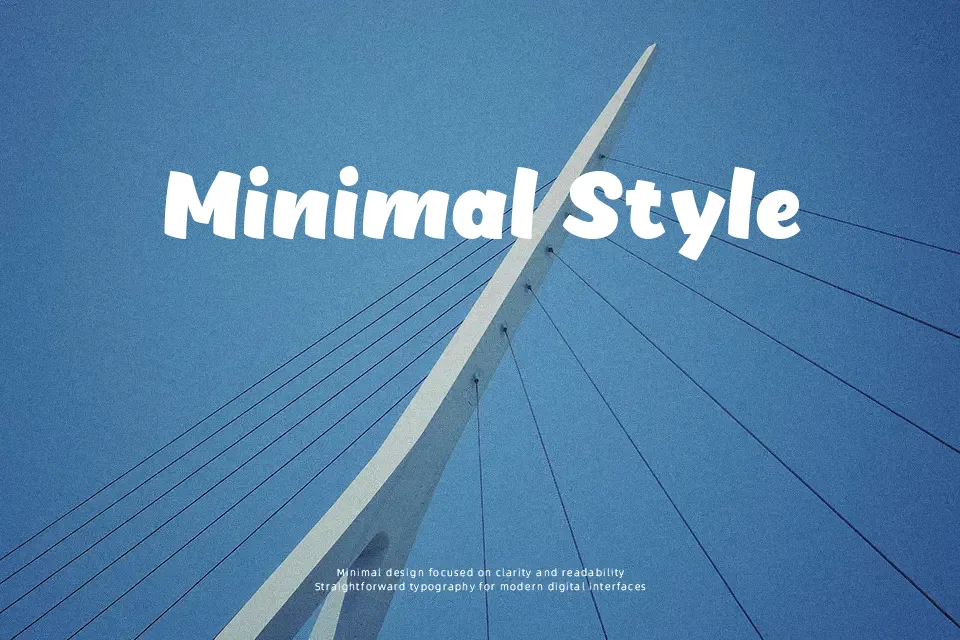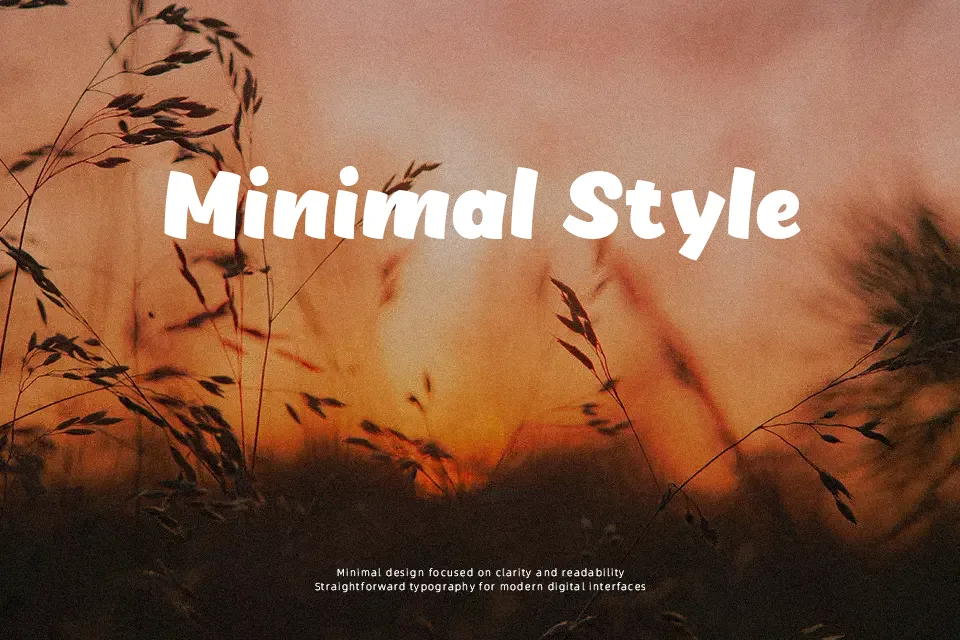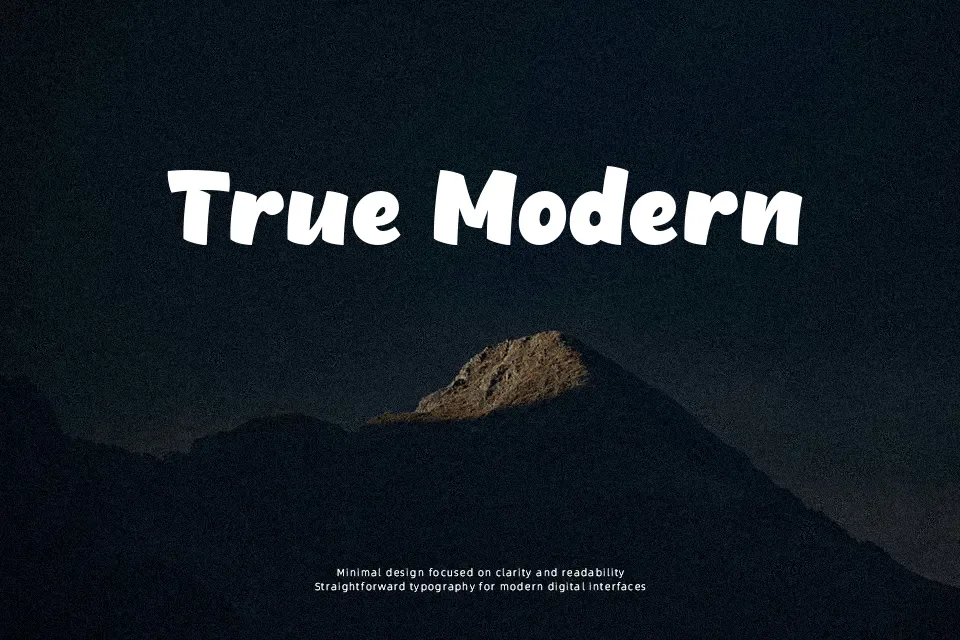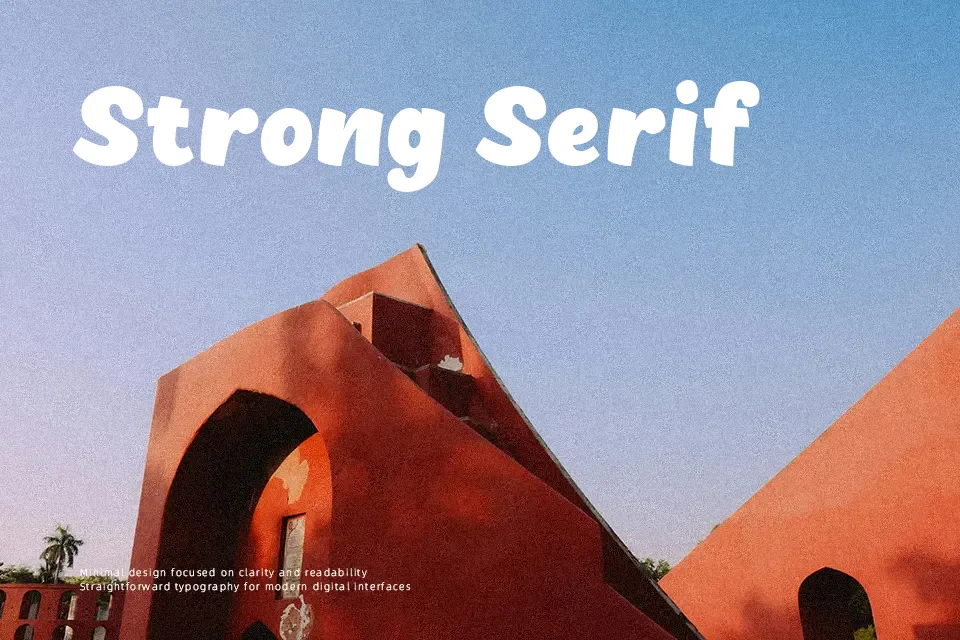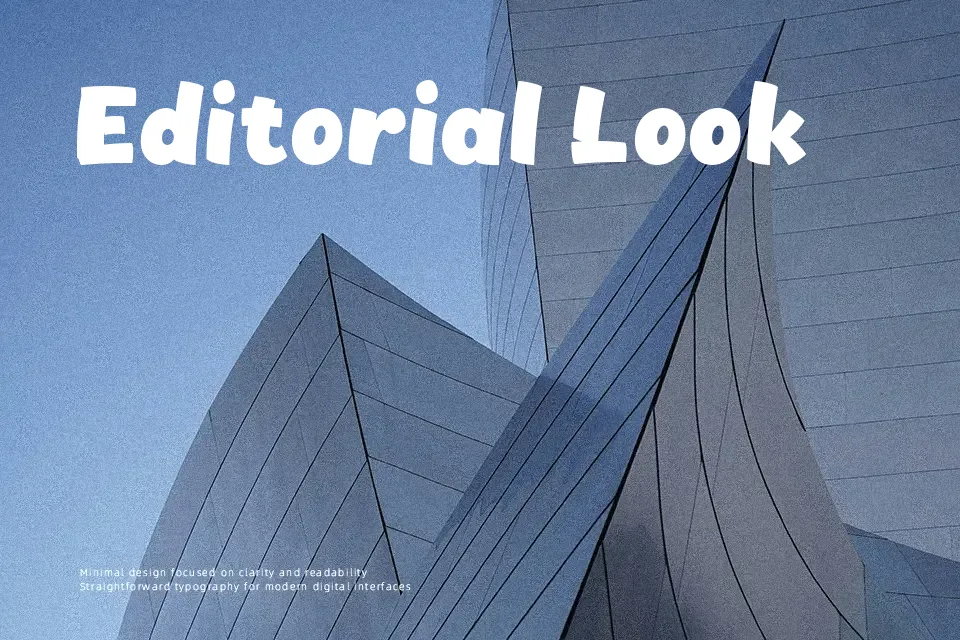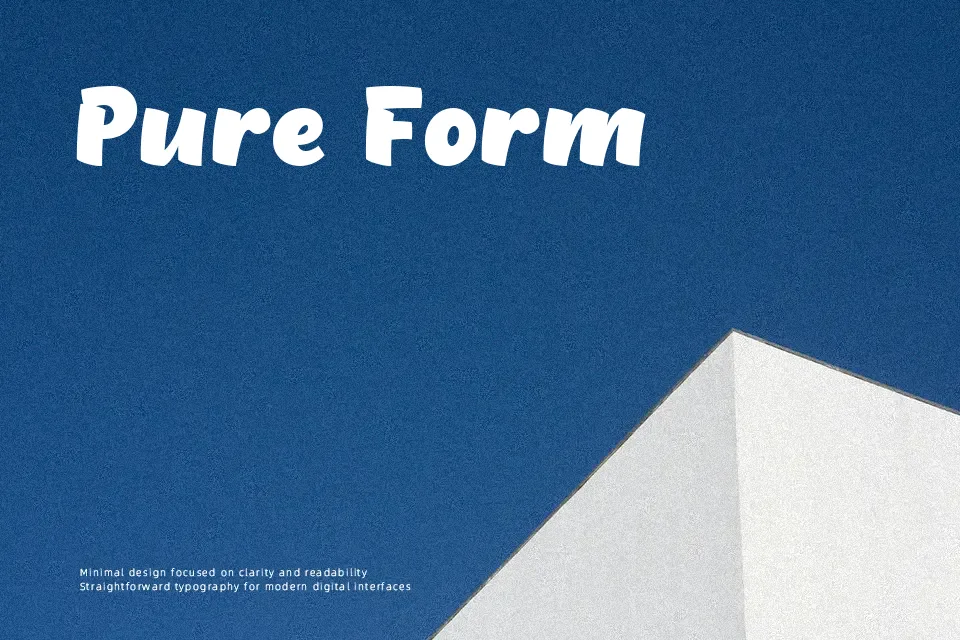
Chekharda Font
Opening with a lively sense of movement, Chekharda Font pairs thick, expressive letterforms with an energetic forward slant and rounded junctions. The typeface maintains solid visual rhythm through tight character spacing and generous x-height proportions, giving each glyph robust presence. High stroke weight ensures that individual letters remain distinct on large posters, mobile gaming interfaces, and vibrant merchandise branding. However, the heavy strokes and compact tracking become crowded in dense editorial settings. Dense forms reduce comfort during extended reading, making the design far better suited for punchy headline compositions than continuous body text.
Best For: children’s book covers, animated game titles, playful packaging labels, event poster headlines
Not Ideal For: long paragraph text, dense editorial layouts, technical documentation, small interface captions